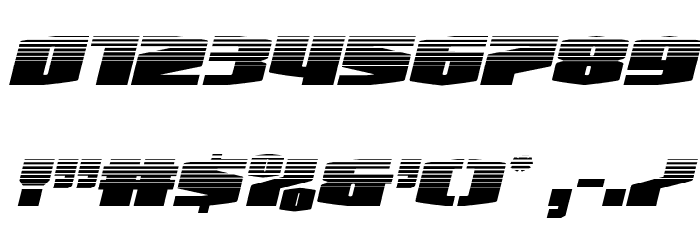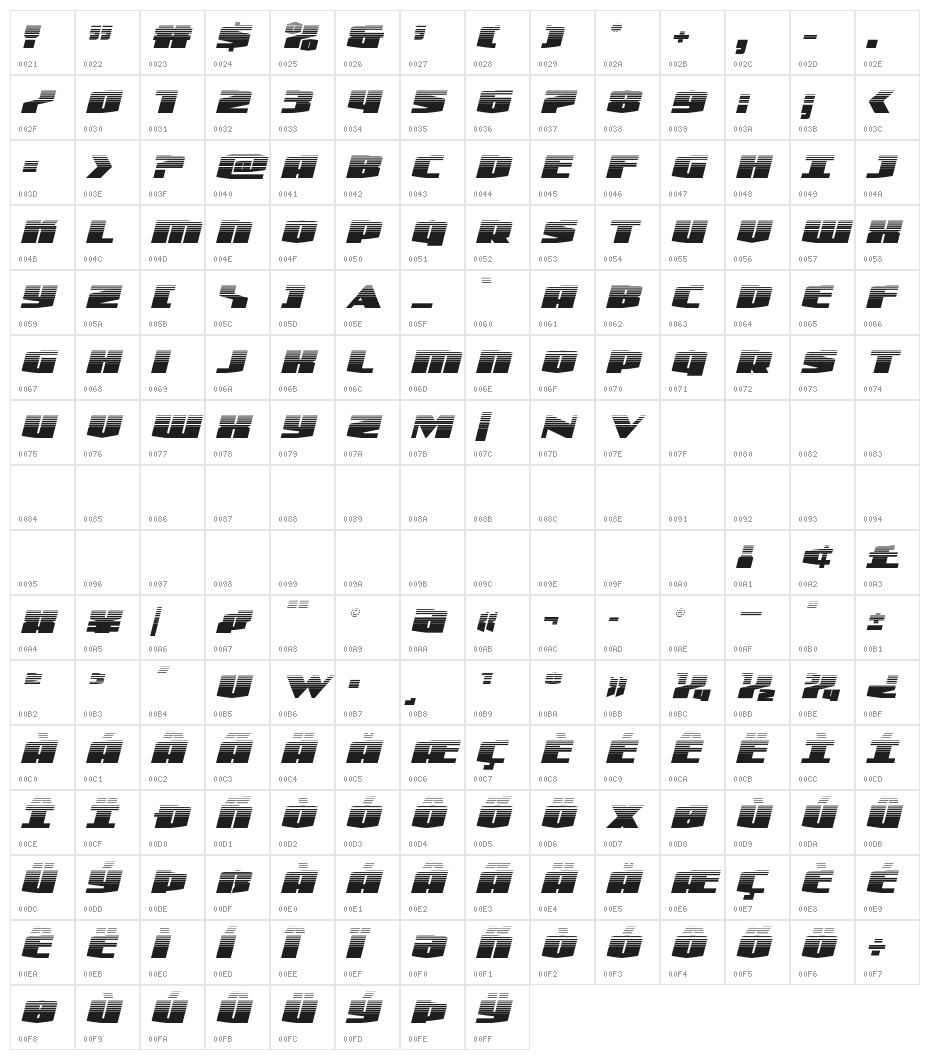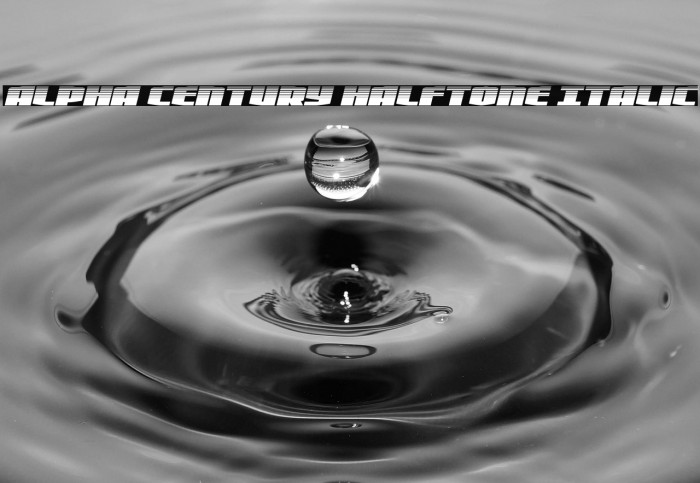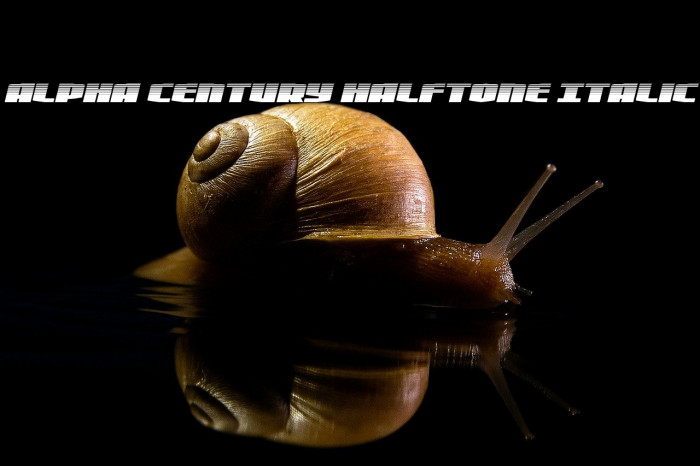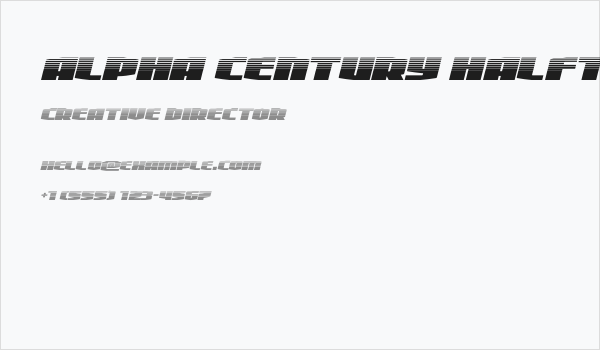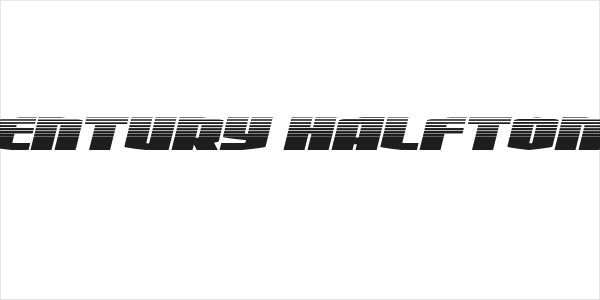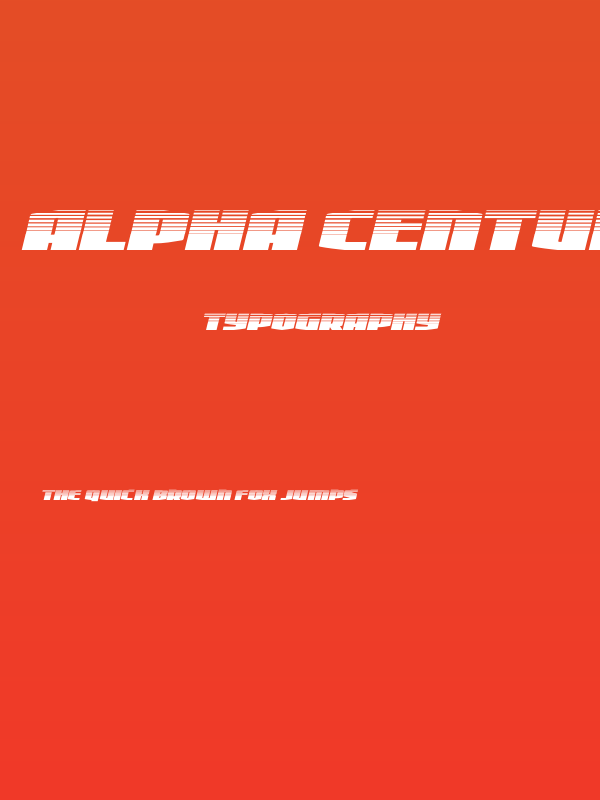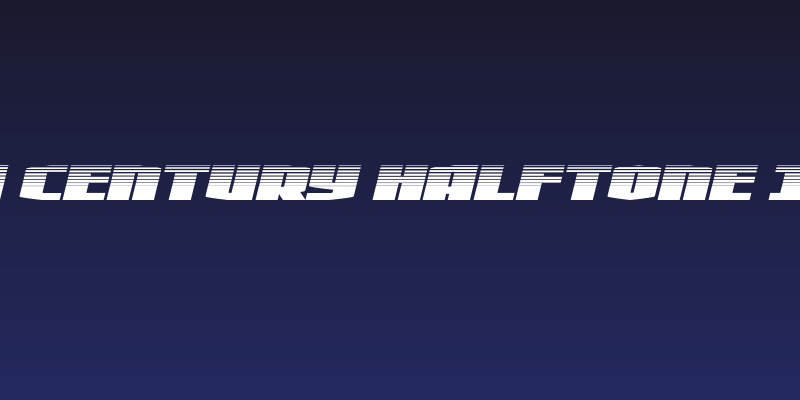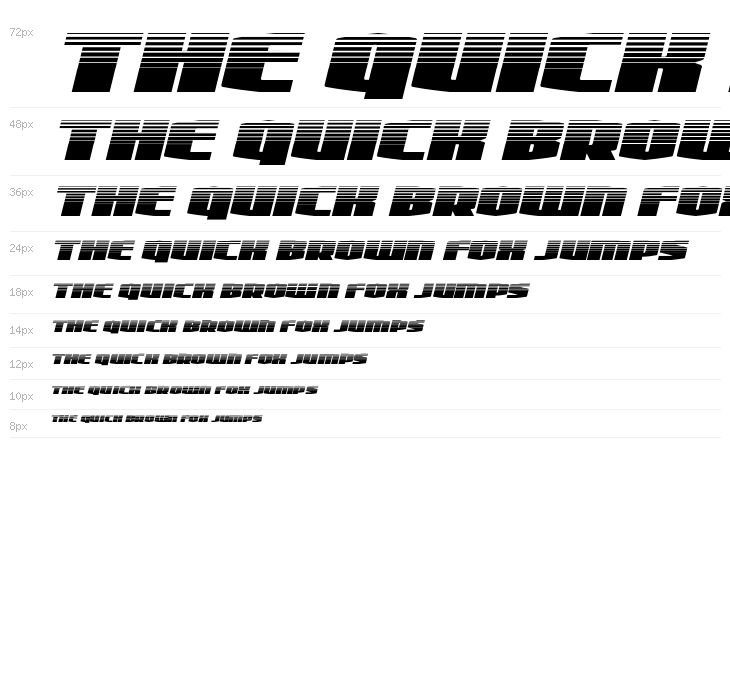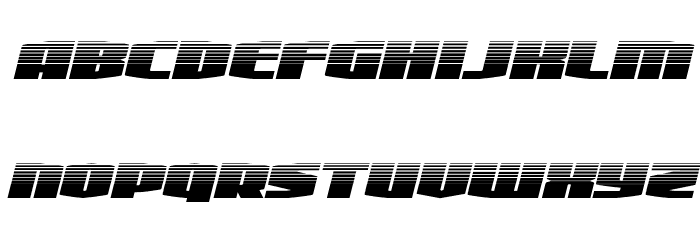
Alpha Century Halftone Italic Font
Alpha Century Halftone Italic Description
This font features a bold, futuristic design with a halftone effect that gives it a dynamic and energetic appearance. The characters are italicized, adding a sense of motion and speed. The uppercase and lowercase letters maintain a consistent style, with sharp angles and a blocky structure. The numbers and special characters follow the same design principles, ensuring uniformity across all glyphs. The font's unique halftone pattern creates a visual texture that stands out, making it ideal for attention-grabbing designs.
| Proposed Projects | Ideal for sci-fi themed posters, video game titles, and modern branding projects. |